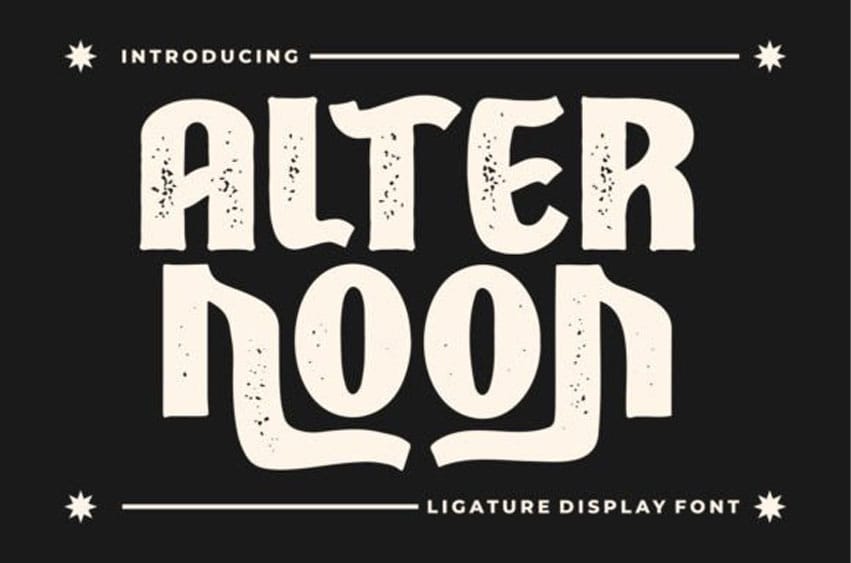
Alternoon Font is a cool and trendy display font. Masterfully designed to become a true favorite, this font has the potential to bring each of your creative ideas to the highest level!